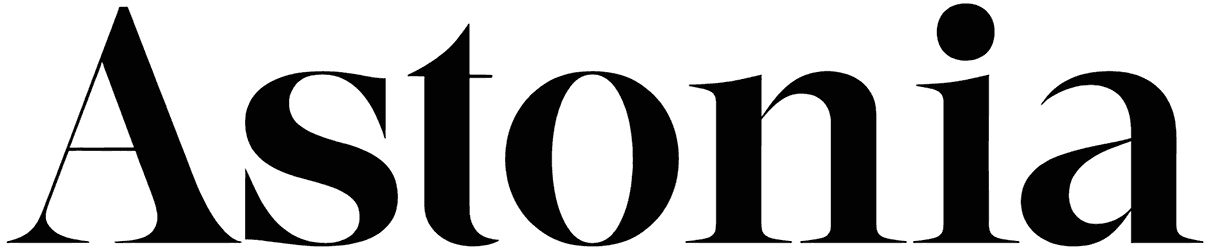
Astonia Font
What if you use an elegant and noble serif font like this item and keep it classic? Surely a timeless visual of this basic font can convey a beautiful feeling and make your romance novel book cover captivating. Let’s set the Astonia font on your next project’s words and see how ravishing it will become.